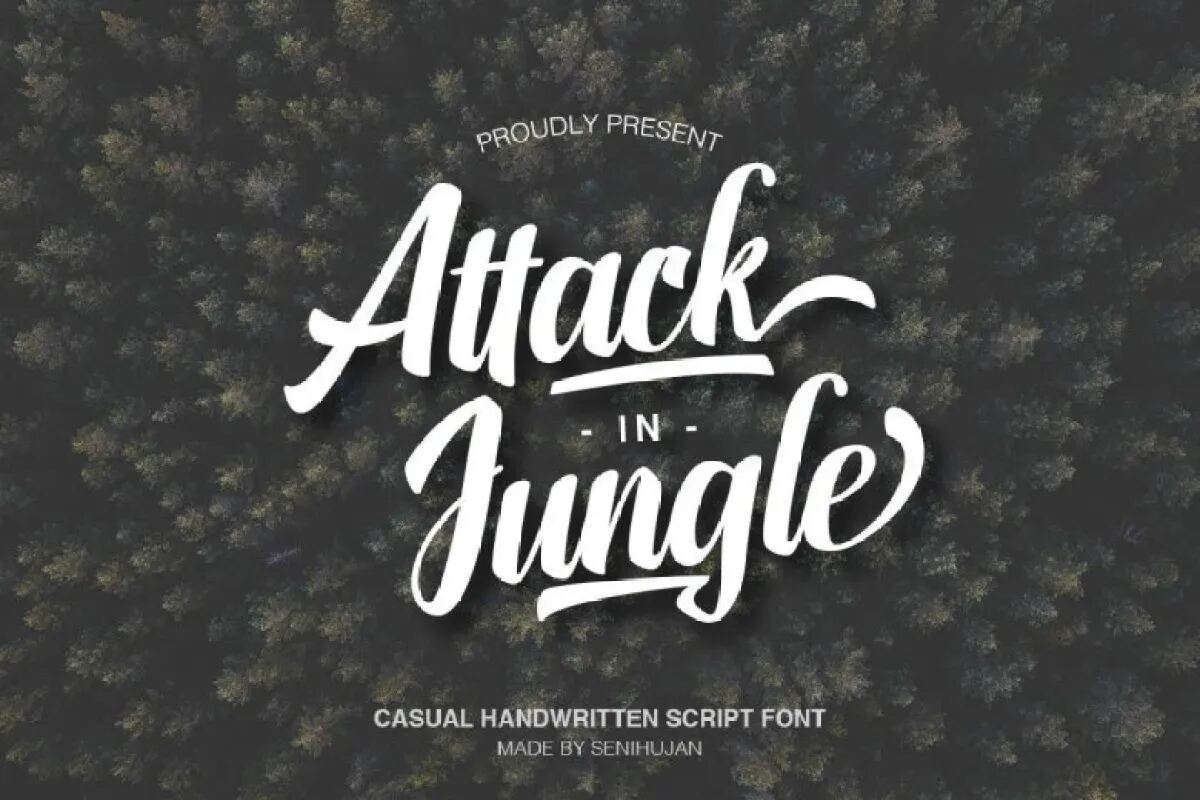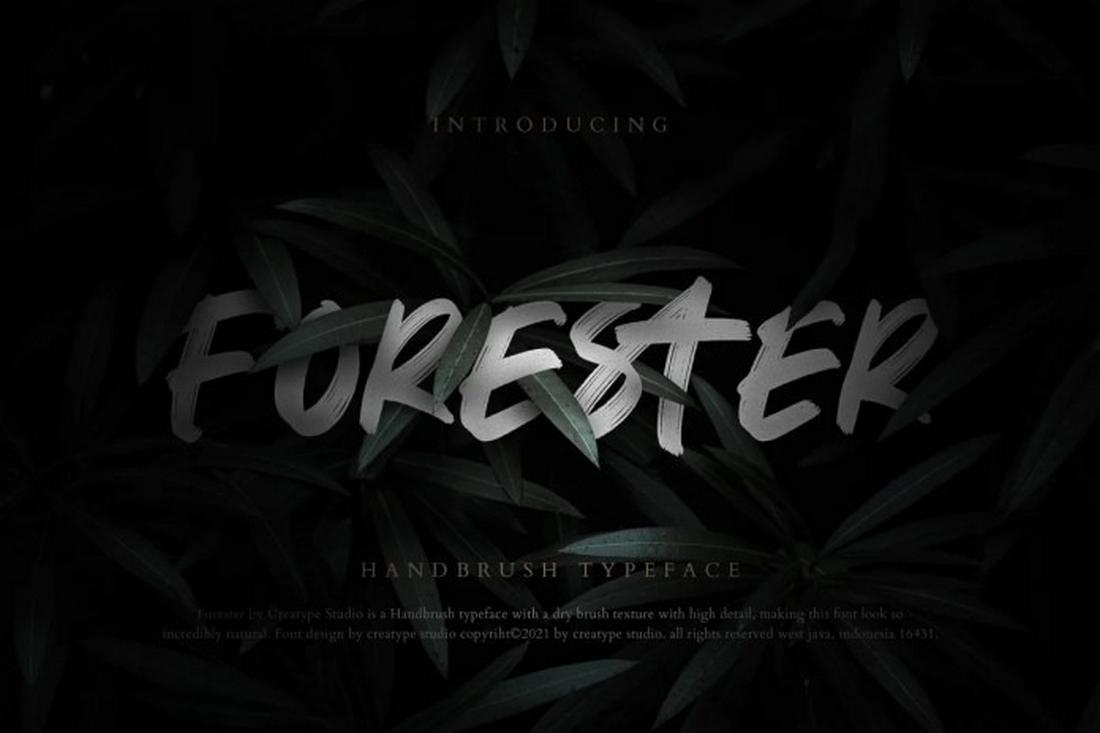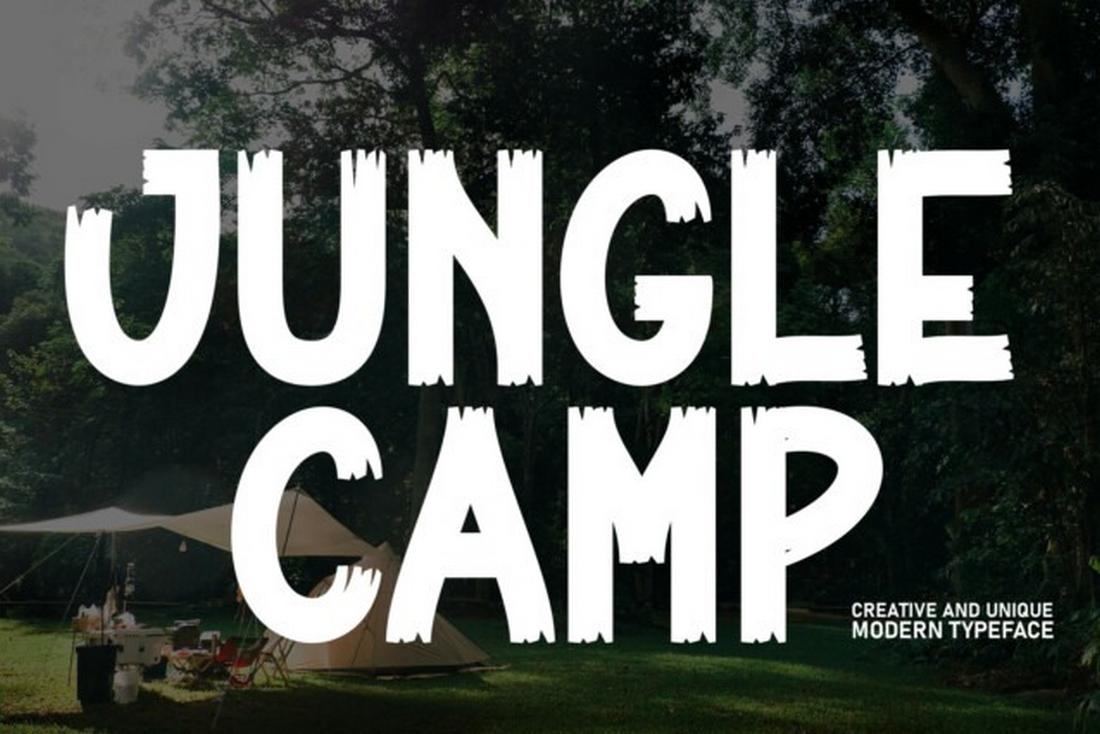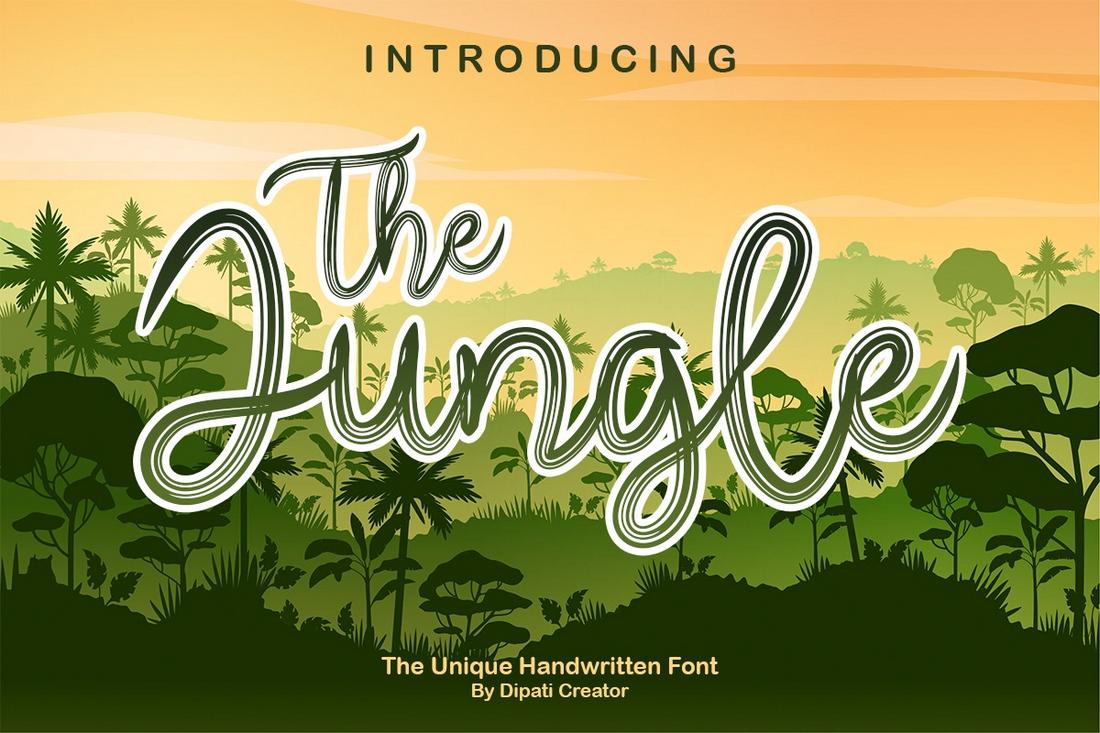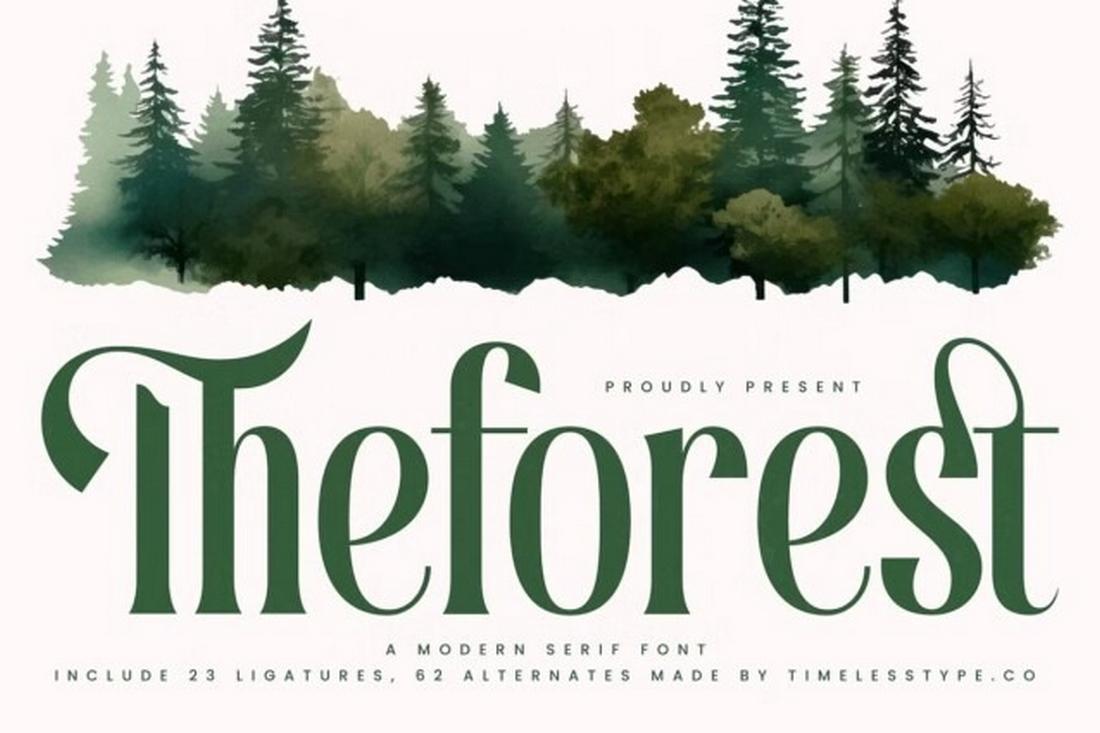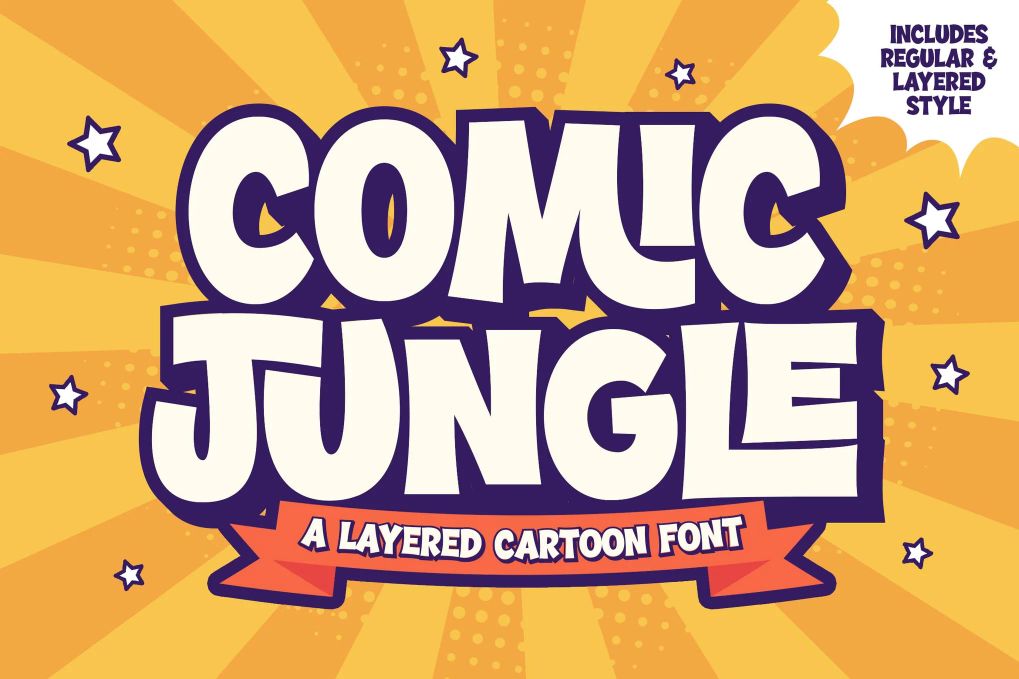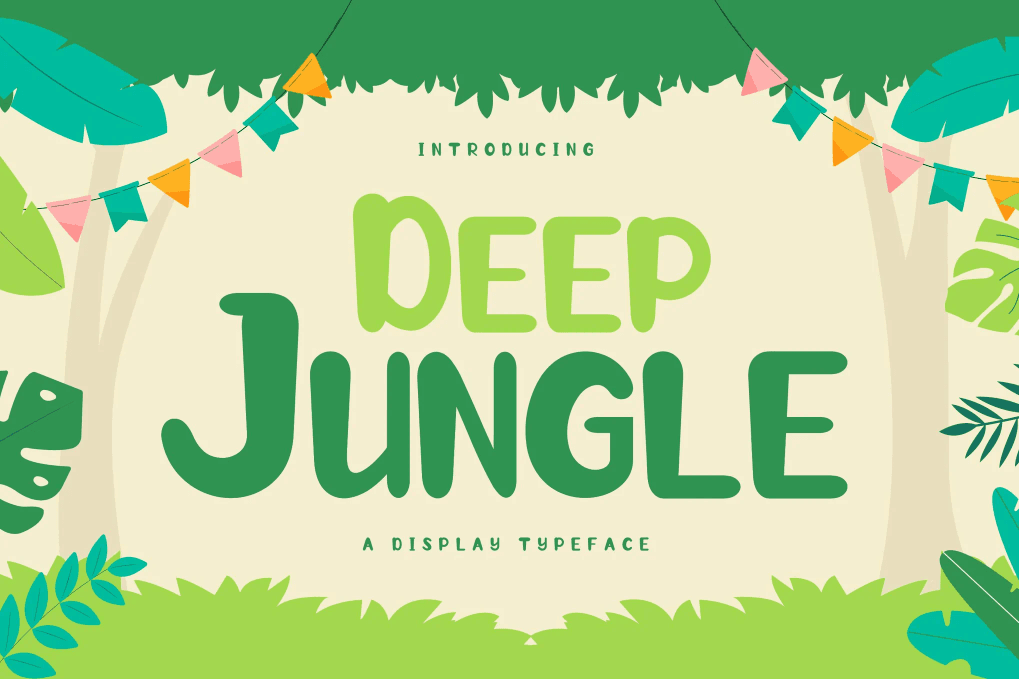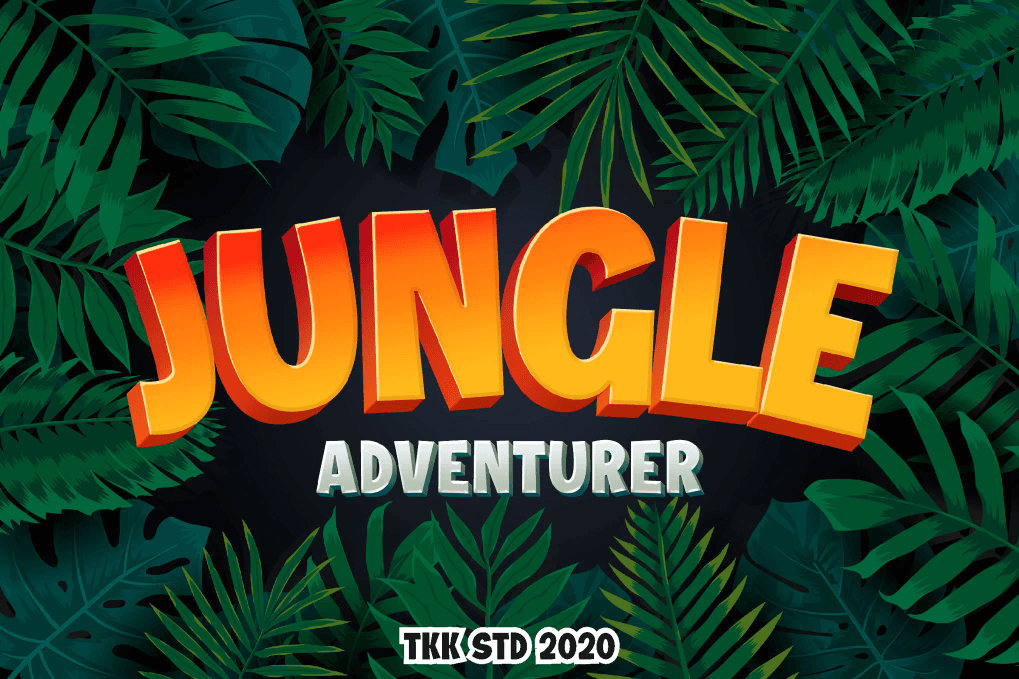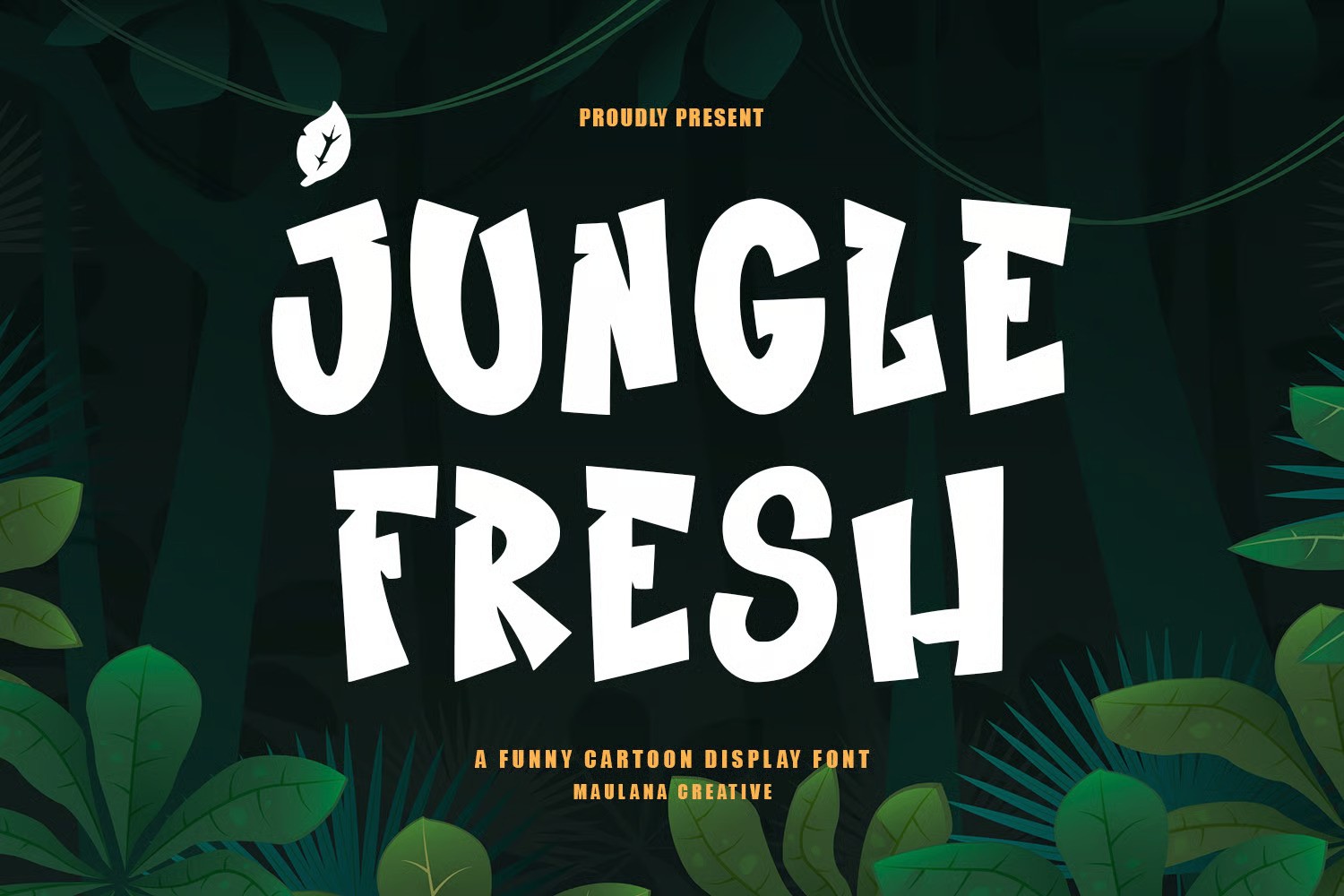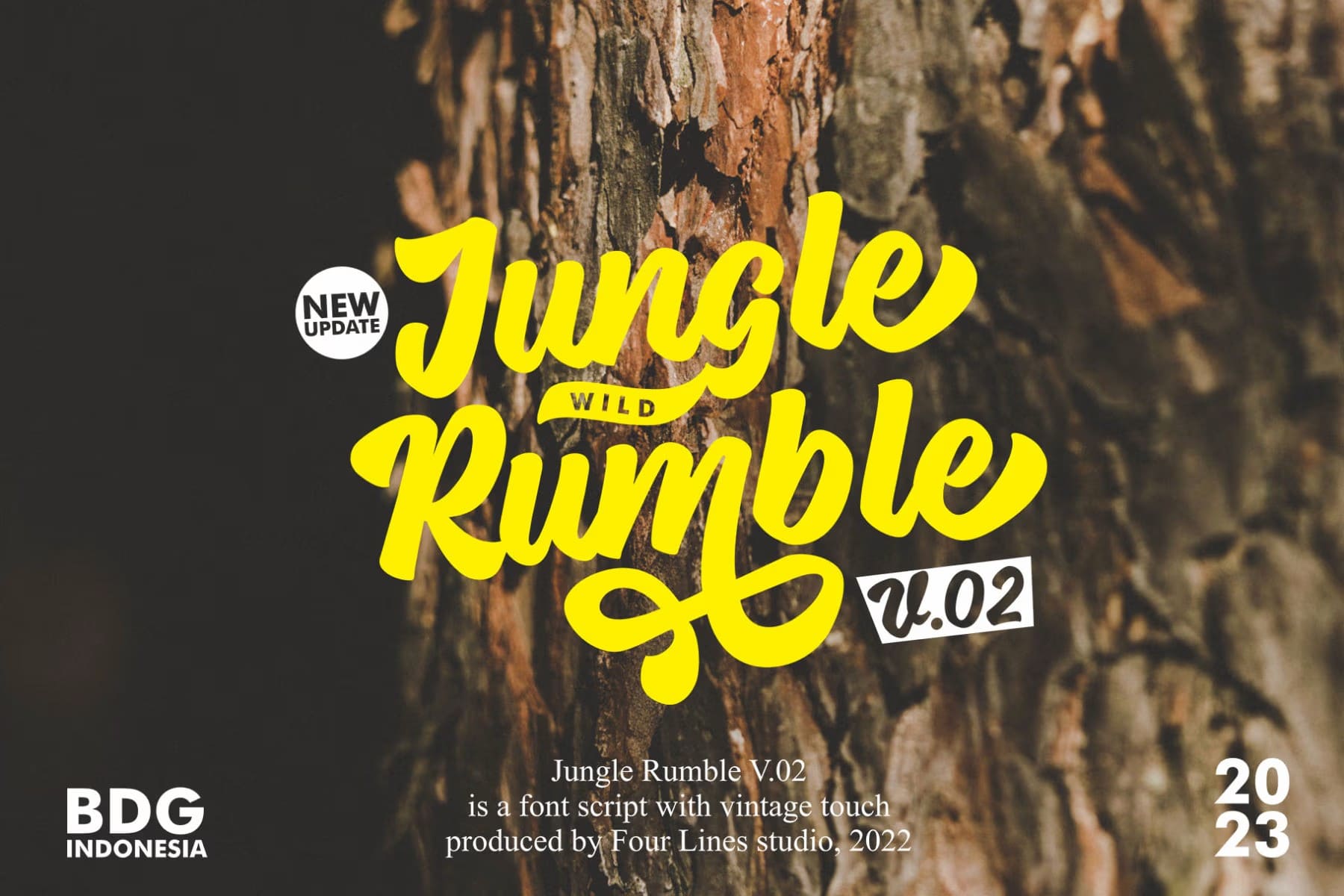
26 Jungle fonts to bring wild energy to designs
Surrender to the beauty of untouched nature and create something organic and sustainable with these jungle fonts.
Jungle fonts
As designers, we are always looking for something that will surprise you. And when it comes to the untamed beauty of nature that you can convey in your designs, the jungle fonts may be what you are looking for.
We’ve scoured the typographic landscape to bring you the absolute best jungle fonts available today. Each one offers something unique while still conveying that quintessential wild, untamed spirit. Here they are:
Deep Jungle
A jungle display typeface
A beautiful display font for a variety of designs. Useful for products such as handcraft, product packaging, quotes, product design, craftsmen, photography, watermarks, logos and branding. It supports OpenType and good for multiple languages.
Tropic Jungle
A handwritten jungle style font
A vibrant and exotic typeface that brings the untamed beauty of the jungle to your design projects. Perfect for posters, branding, invitations, and any project that needs a splash of tropical flair. It supports OpenType and good for multiple languages.
Jungle Adventurer
A jungle gaming font
A bold, playful display typeface with bouncy shapes and cartoon-style energy. So good going for your designs such as gaming, display, lettering, posters, flyers, covers, and more. Comes in uppercase and lowercase characters, numbers, punctuation, and PUA encoded.
Jungle Fresh
A funny cartoon display font
A funny cartoon display font. With bold tall and kids stroke, fun character with alternates. It support multilingual language. This font is good for logo designs, social media, movie titles, books covers, a short text even a long text letter.
Theforest
A modern serif font
A free serif font that features a unique Jungle-themed letter design. This font is perfect for all sorts of elegant, nature-inspired typography designs.
Forester
A free handbrush typeface
A strong, street-friendly brush font bursting with spirit. With distinctive strokes, it makes this font look natural like nature so it fits all your creative designs. Its perfect for branding projects, logos, wedding designs, social media posts, advertisements, product packaging, product designs, labels, and more.
Jungle
A free handwritten font
A free handwritten font so good going for your designs that need a touch of craft and nature. Feel free to use it on your posters, flyers, logos, branding, book covers, and more.
Tropic Jungle
A free jungle display font
A free cute handwritten display font ideal to create titles, covers, posters, flyers, magazines, and many more. Only all caps available.
Jungle Land
An adventure jungle font
This font combines attractive curves with a fresh urban edge; delivering a stylish script which is guaranteed to add an eye-catching appeal to your logo designs, brand imagery, quotes, product packaging, and more. Comes in uppercase and lowercase characters, numbers, punctuation, ligature, PUA encoded + support multilingual.
Roaring Jungle
A retro fun jungle style font
An attractive curved style font from stone-style writing that is guaranteed to add traction. Perfect for vintage and poster designs as well as for your logo designs, brand image, retro posters, handwritten quotes, and more. Equipped with 2 forms, namely regular and rough + multilingual support.
Download Font
Jungle Roots
A popular display jungle font
A wild and playful display font inspired by the untamed spirit of the jungle.  Perfect for kids’ projects, zoo or safari-themed events, nature campaigns, and playful branding. All uppercase characters, alternates, numbers, punctuation + multilingual support.
Download Font
Zoonaji
A sans serif display jungle font
An all caps sans serif display font perfectly suits for your up coming projects. Such as logo branding, editorial designs, stationery designs, blogging, modern advertising, card invitations, art quotes, home decor, and more.
Download Font
Tropical Jungle
A fun wild tropical font
A fun wild font, inspired by the wild life of the jungle. Ideal for designs such as covers, titles, lettering, t-shirt designs, branding, and more. Over 500 glyphs, 3 stylistic alternates, swashes and ligatures + multilingual support.
Download Font
Wood Island
An ethnic tribal typeface
Inspired by traditional ethnic feel and visuals. Great for fun and casual thematic visuals, games, logos, branding, products, campaigns, events, and more. Comes in uppercase and lowercase characters, numbers, punctuation + multilingual support.
Download Font
Comic Jungle
A layered cartoon font
A playful cartoon font combination is made for any professional project branding, such as logos, comic, watermarks, posters, titles, and more. This font comes in 2 font combination (regular and extrude). Multilingual support.
Download Font
Jungle Hope
A fun handwritten font
A fun display font with adorable feel. Ideal for crafting, digital designing, presentations or greeting cards making, and more. Comes in uppercase and lowercase characters, symbols, punctuation, numeral, alternates, ligature + multilingual support.
Download Font
Forestana
A playful kids font
A playful nature-inspired display font with bold proportions, hand-crafted charm, and organic curves. perfect for kids book covers, posters, flyers, invitations, greeting cards, and more. Comes in uppercase and lowercase characters, symbols, punctuation, numeral, and alternates.
Download Font
The Moot Jungle
A fresh nature typeface
An elegant serif font with a natural twist. Inspired by the beauty of nature, this font features a stunning swash of leaves that adds a touch of sophistication. The font has a total of 700 glyphs including symbol, and multilingual support.
Download Font
Jungle Camp
• Free for personal use only.
A free display font
This free font comes with a fun and playful characters that makes it an ideal choice for crafting titles and headings related to children’s designs.
Download Font
The Jungle
• Free for personal use only.
A free handwritten font
A unique handwritten font featuring a jungle-themed design. It comes with a creative look that will fit in well with t-shirts, posters, banners, greeting cards, and various other designs.
Download Font
Family Jungle
• Free for personal use only.
A free handwritten font
A free handwritten style font so good going for your designs such as lettering, postcards, invitations, book covers, greeting cards, and more.
Download Font
Attack in Jungle
• Free font for personal use only.
A free casual handwritten script font
A casual handwritten script font to use for free. Ideal for your designs, such as badges, labels, logos, branding, t-shirt designs, and more.
Download Font
Jungle Rumble
• Free for personal use only.
A jungle script font with vintage touch
A jungle script font with a vintage touch. Good going for badges, labels, logos, branding, packaging, t-shirt designs, and more.
Download Font
Jungler Traveling
A travel and adventure font
A modern and authentic display font. The font is suitable for any branding project like posters, logos, sport, and many more. Outstanding in a wide range of contexts.
Download Font
Jungle
A jungle hand brush typeface
A hand natural brush display font that strong, fun and simple which inspired by children books and street hand drawn typography. Comes in standard characters, numerals, punctuation, ligature, swashes, PUA encoded + multilingual support.
Download Font
Zoocute
A jungle fun font
Inspired by the zoo vibe and visual to get the exact and precise fun zoo concept for your designs. Perfectly fit for storybooks, kids book covers, kids meal designs, fun events, logos, casual branding, greeting cards, and more.
Download Font
FAQ’s:
What do jungle fonts looks like?
Not all typography can effectively transport viewers to wild landscapes and jungle environments. The most successful jungle fonts tend to share a few key characteristics:
• Organic shapes;
• Nature inspired textures and backgrounds;
• Greenery decorative elements;
• Vibrant and dramatic presence;
• Indigenous typography and tribal art.
These primitive jungle style components have an influence and can manifest themselves in simplified forms, symbolic elements or stylized characters, reminiscent of ancient cultures and their connection to the jungle environment. This external echo gives the design depth and authenticity.
Where to use jungle fonts?
These beautiful and creative jungle fonts can be used in many designs. These can be greeting cards, movie covers, animation, birthday typography, nature picnics, book covers, fun designs, t-shirt designs and many more.
Where to use jungle fonts effectively?
Now that we understand what makes jungle fonts stand out, let’s explore where they can be most effectively used in your design projects:
• Adventure and tourism brand identity;
• To protect wildlife;
• Help zoos and wildlife parks;
• Children’s educational materials;
• Food and beverage packaging;
• Gaming and media.
Where to avoid jungle fonts?
In various technical documentations, corporate and professional contexts, formal occasions, and others. While jungle fonts bring joy, fun and energy to many projects, there are definitely situations where their casual, playful nature may not be the best fit.
Make your designs with love and passion
Jungle fonts bring a unique energy and atmosphere to design projects, transporting viewers to lush, wild environments surrounded by nature through typography alone.
From adventure style to children’s books, these versatile fonts create direct thematic connections that enhance message delivery and create a memorable visual experience.
If you’re still on the accelerator, hold on! And having said that, these amazingly designed jungle fonts want to be noticed and await your judgment. With a full speed let’s do the best design ever. That’s your best chance!
Tags:
FontsJungle Fonts
Share Our Post
A box with beverage Just Hard Squeezed
Previous Post
Thirst made a bold statement for the ‘Just Hard Squeezed’ twist
Lovart cover
Next Post
Lovart: the world’s first ‘AI’ design agent launches globally
Popular Categories
Art Art
19 Posts
Creative Creative
94 Posts
Tech Tech
81 Posts
Blogging Blogging
14 Posts
AI AI
72 Posts
Most Viewed
Free fonts cover
100 Best free fonts (2025)
MTV music channels go dark forever
ChatGPT translate